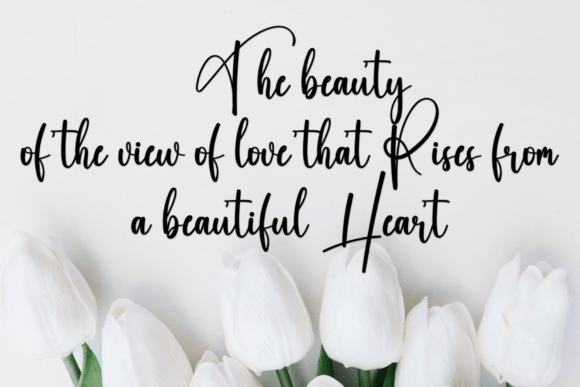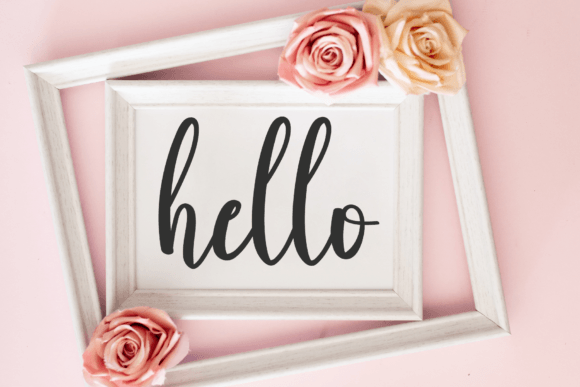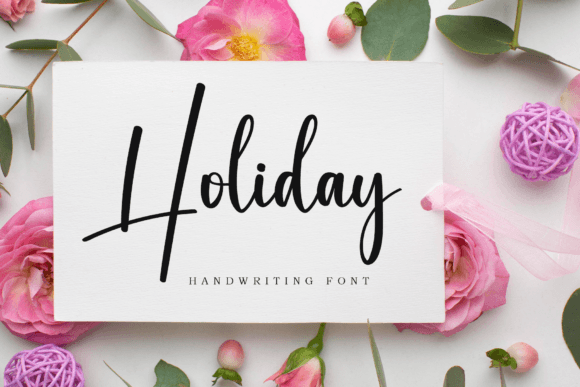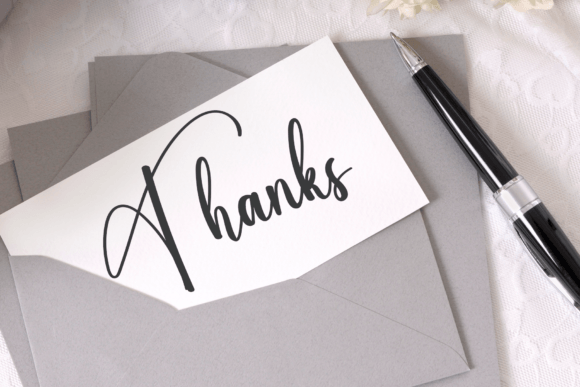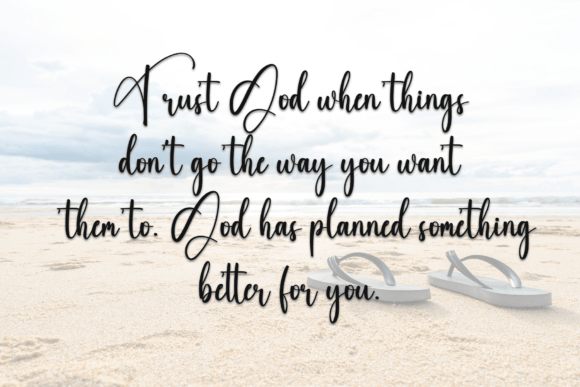
Quantum Font
About Quantum Font
“Quantum” is a neat and beautiful handwritten font characterized by an elegant touch. Carefully crafted, this font is ideal for a variety of creative projects. Its distinct and timeless style adds a touch of sophistication, making it a versatile choice for design endeavors.
The elegant touch of “Quantum” lends itself well to numerous applications. Imagine it on wedding invitations, where its beauty enhances the romantic feel of the event. Picture it on product packaging, adding a touch of elegance to the branding. Envision this font used in stationery or digital designs, creating a distinct and memorable visual impression.
The versatility of “Quantum” extends to its timeless style, making it suitable for both contemporary and classic design contexts. Whether you’re working on personal projects or commercial branding, this font invites you to fall in love with its distinct charm.
Let “Quantum” be the key element that elevates your designs, creating spectacular and timeless aesthetics. Whether you’re designing for weddings, branding, or any other creative project, this font is crafted to add an elegant touch to your favorite endeavors.